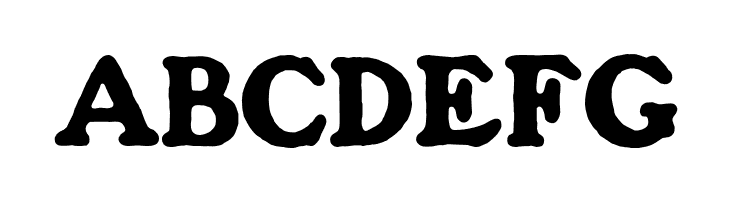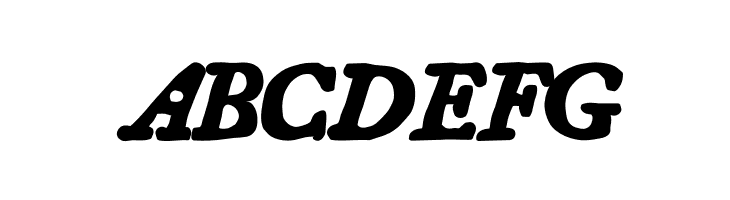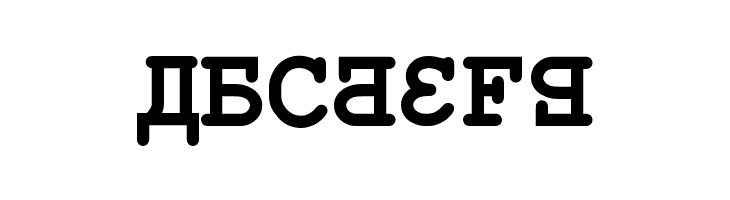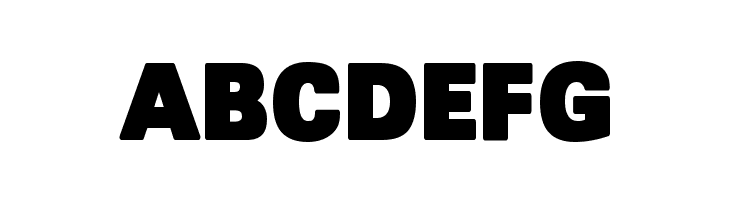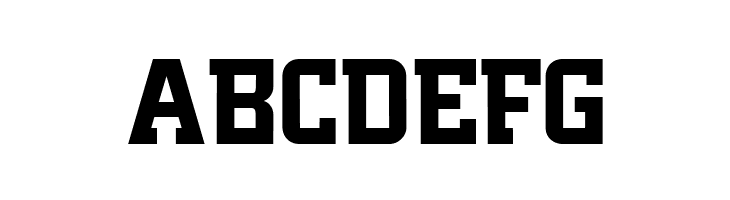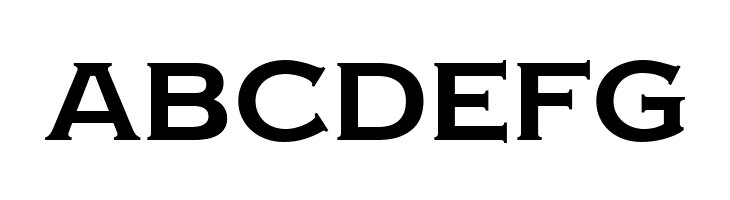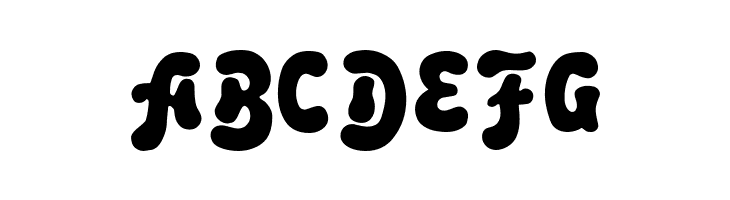
A robust slab serif typeface with strong, block-like serifs and a modern aesthetic.
A bold and robust font with thick strokes and a strong presence.
A bold, collegiate-style font with strong, angular serifs and a robust presence.
A robust slab serif font with a strong, structured design.
A robust slab serif font with strong, block-like serifs and a balanced design.
A bold and striking typeface with thick, uniform strokes and a robust appearance.
A bold and robust font with thick strokes and a strong presence.
A robust slab serif font with balanced proportions and strong serifs.
A bold, robust font with thick strokes and a slightly condensed style.
A bold slab serif font with strong, block-like serifs and a robust presence.
A bold, robust font with thick strokes, perfect for impactful headlines.
A bold and robust font with strong, thick strokes for a confident and authoritative look.
A bold, italic font with a dynamic and robust style.
A bold and robust typeface with smooth, rounded characters.
A bold, rounded font with a playful and robust style.
A bold slab serif font with strong, block-like serifs and a robust presence.
A bold slab serif font with strong, block-like serifs and a robust appearance.
A bold, rounded font with a playful and robust appearance.
A bold, high-contrast serif font with a classic and robust style.
A bold and robust font with thick strokes and a strong presence.
A bold, geometric font with a modern and robust style.
A bold, modern font with strong, angular lines and a robust presence.
A bold and robust font with strong, thick strokes and a touch of elegance.
A bold, robust font with strong strokes and a confident presence.
A bold, robust serif font with strong strokes and prominent serifs.
A bold and robust font with thick strokes and a strong presence.
A bold, rounded font with a modern and robust style.
A robust serif font with a dynamic and elegant style, perfect for versatile use.
A bold, robust font with thick strokes and a strong presence.
A bold, geometric font with an industrial and robust style.
A bold, robust font with elegant curvature and strong presence.
A bold, robust serif font with a strong, authoritative presence.
A bold, robust font with rounded edges and a strong presence.
A bold and robust typeface ideal for impactful designs.
A bold, robust font with thick strokes and a dynamic slant.